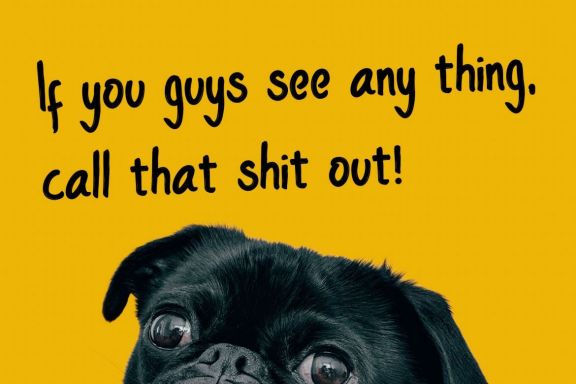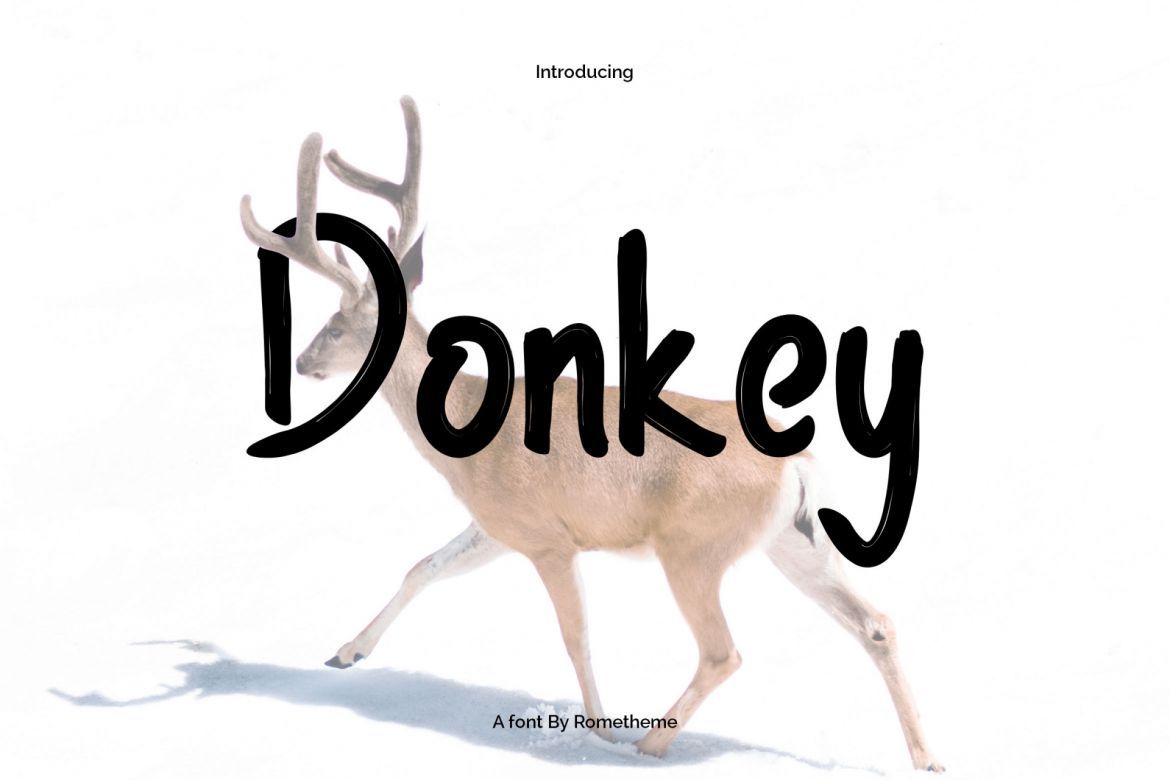
Donkey - Handwritten Font
Introducing – Donkey is a handmade display font. This fancy and playful font is stylish and versatile so you can use in a plethora of designs in both digital and print applications.